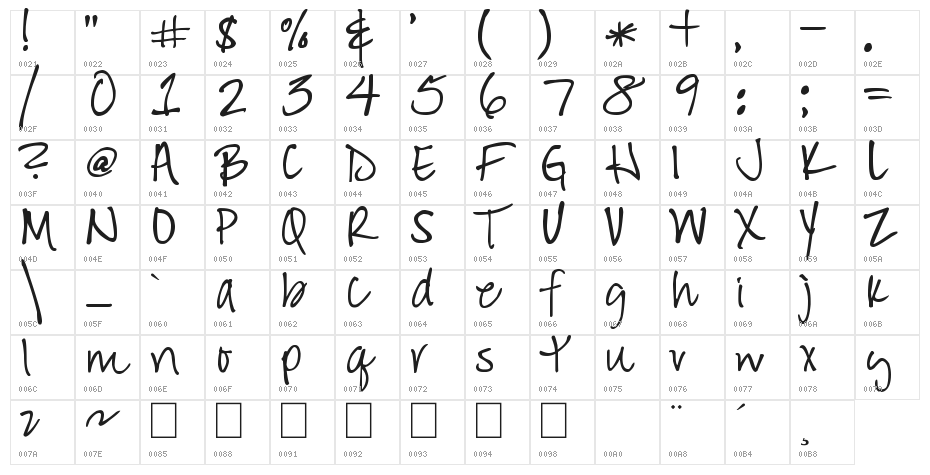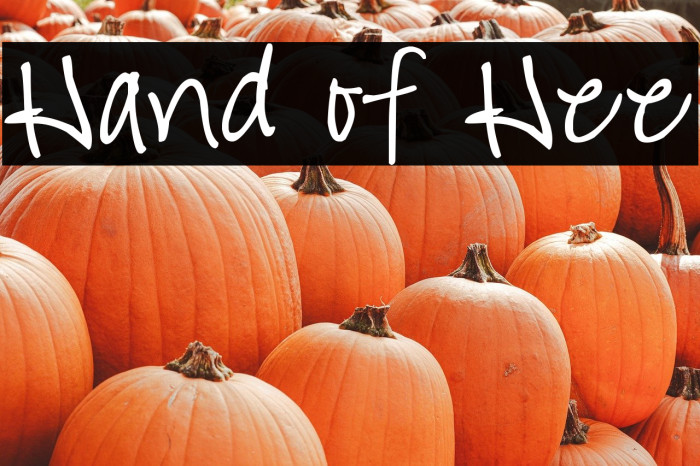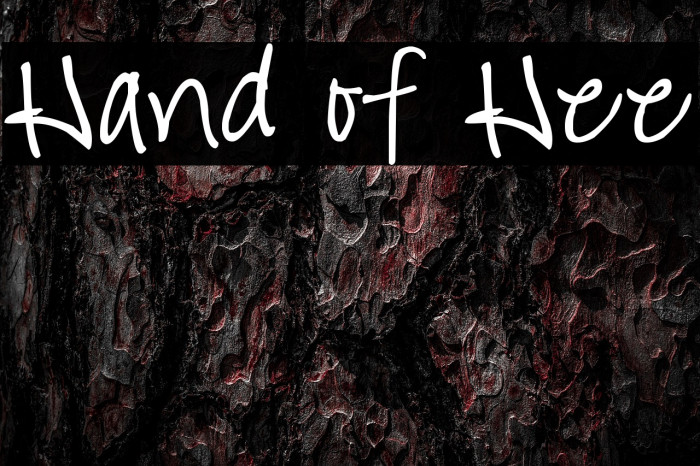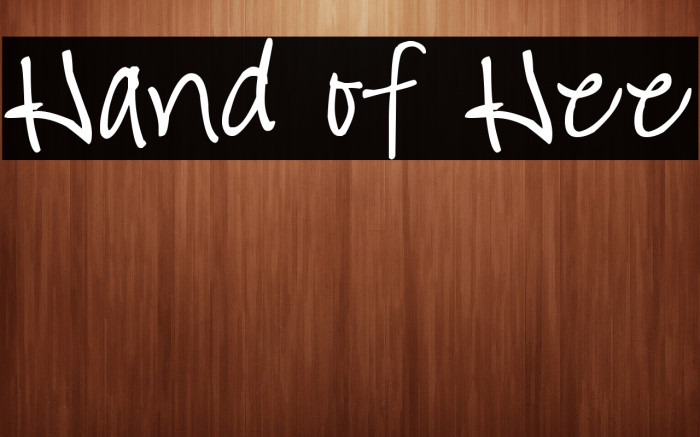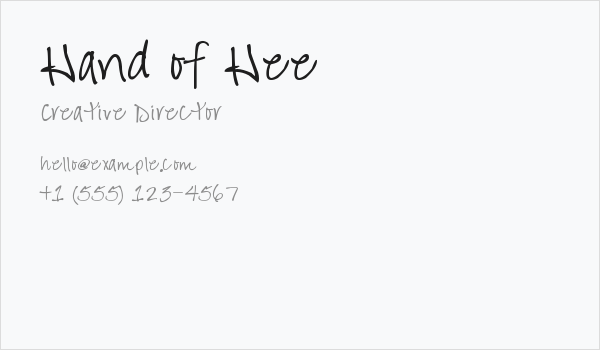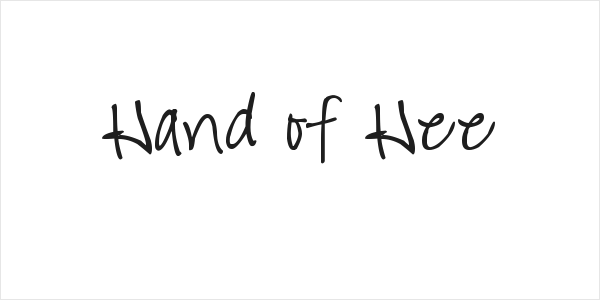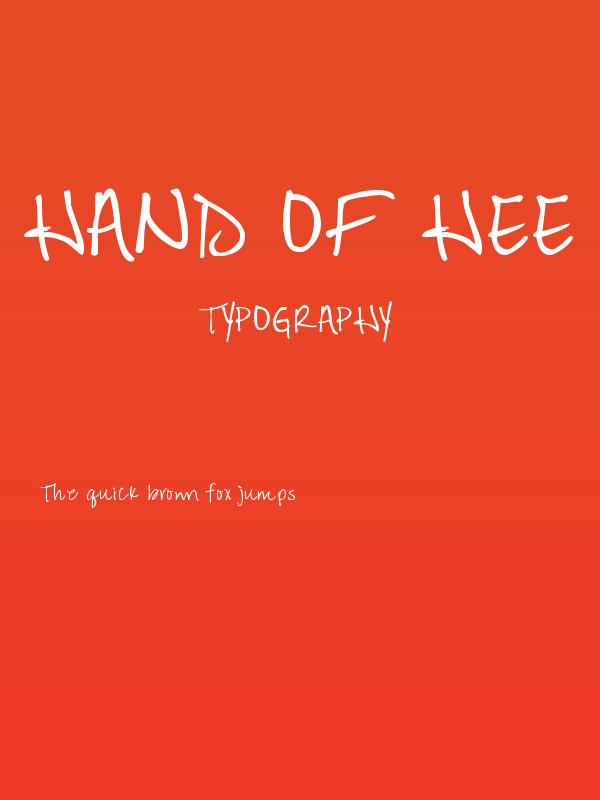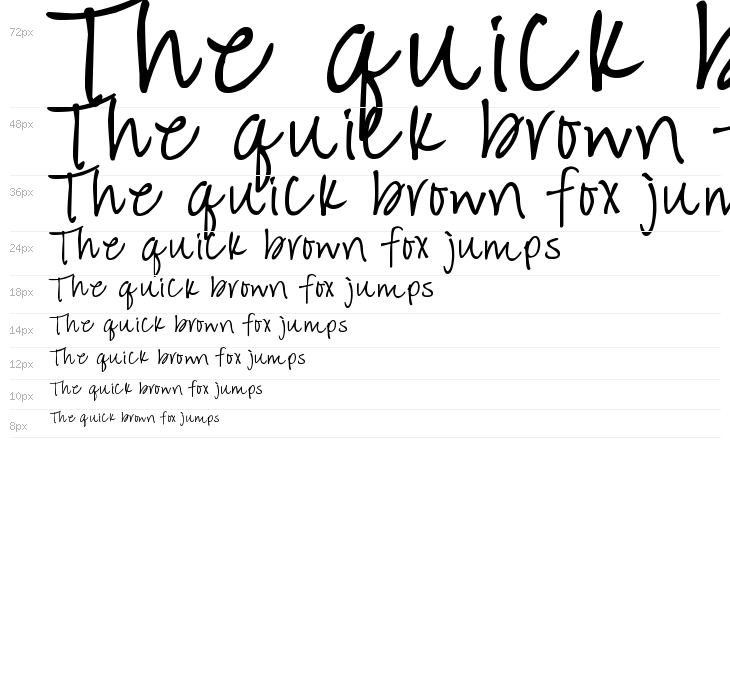
Hand of Hee Font
Hand of Hee Description
This font exudes a casual, handwritten style with a playful and informal appearance. The letters are slightly slanted, giving it a dynamic and lively feel. The strokes are uneven, mimicking the natural flow of handwriting, which adds a personal touch. The uppercase and lowercase letters maintain a consistent style, with rounded edges and varying stroke thickness that enhance its approachable character. The numerals and special characters follow the same handwritten aesthetic, ensuring a cohesive look across all elements.
| Proposed Projects | Ideal for personal notes, invitations, greeting cards, and creative projects that require a personal touch. |